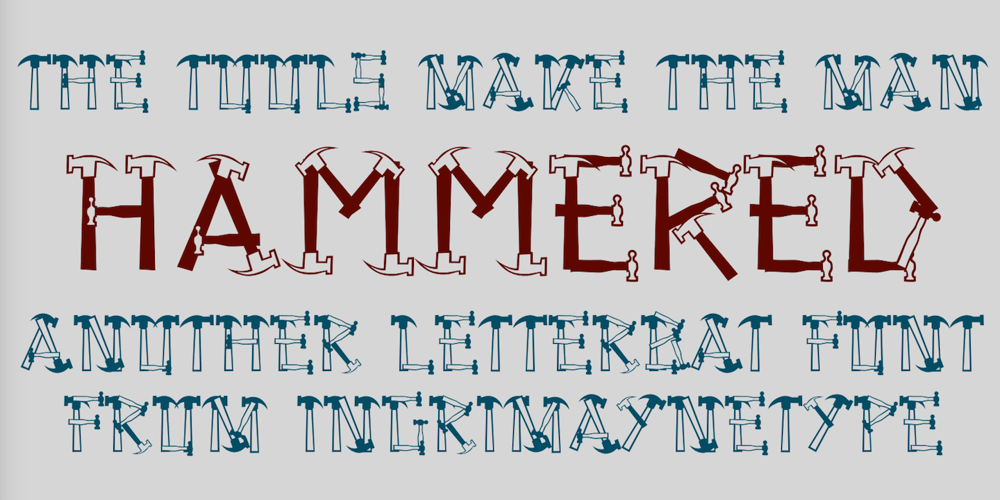
Hammered Font Family was designed by Robert Schenk and published by Ingrimayne Type. Hammered contains 1 styles and family package options. In Hammered all the letters are made up of hammers and an occasional nail. It is caps only, but the characters on the lower-case keys differ from those on the upper-case keys. It has a large set of accented characters. It is not often that one needs a typeface made of hammers and nails, but if one does, there is a font for that. For related, tool-based typefaces, see Screwged, NailsNStaples, and WrenchedLetters.